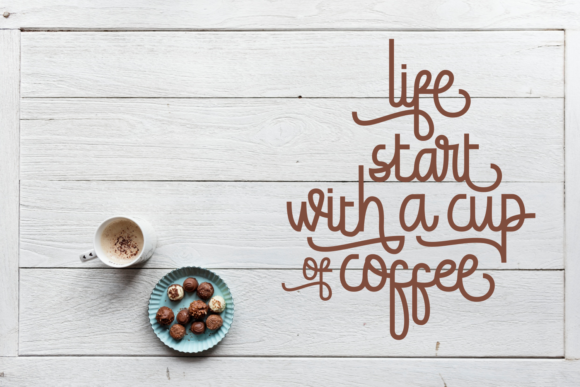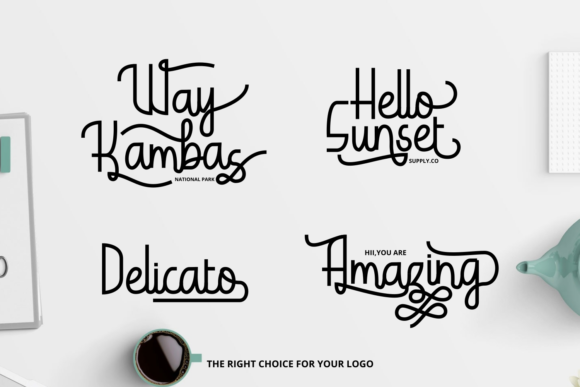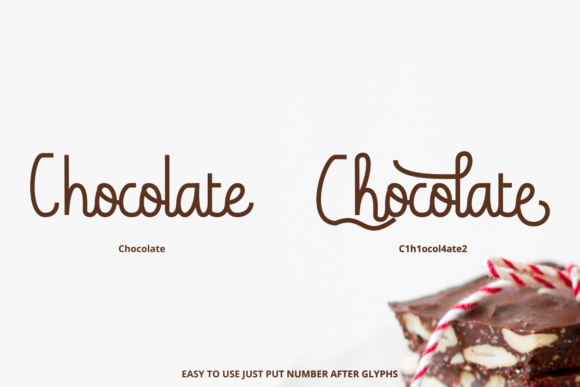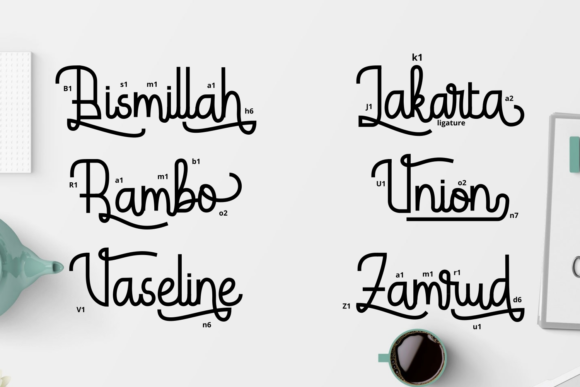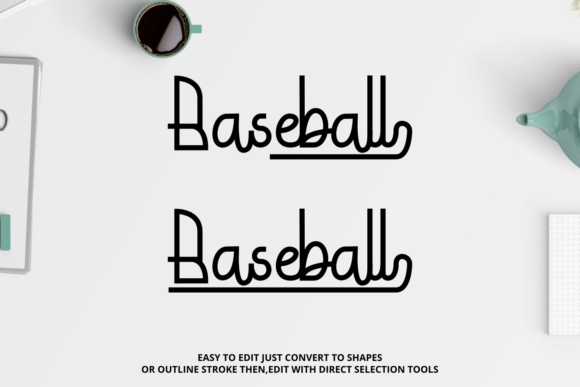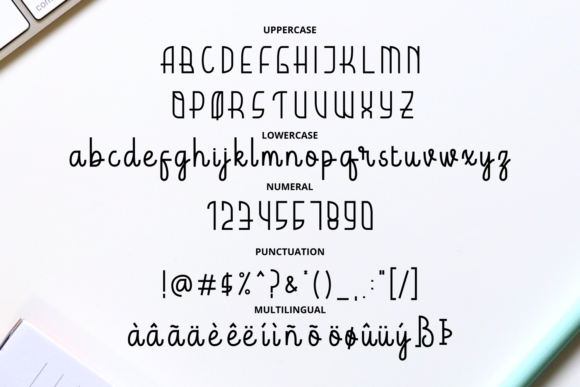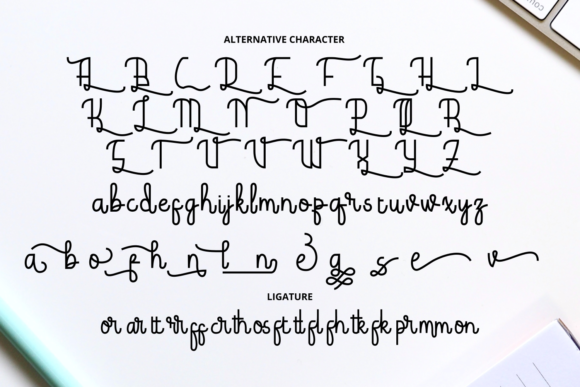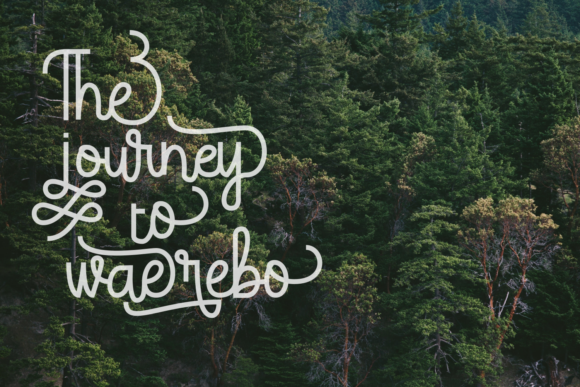
Hardolyn Font
About Hardolyn Font
The Hardolyn is an unique script font. It’s suitable for quotes, invitations, advertising, and much more! No limitations!